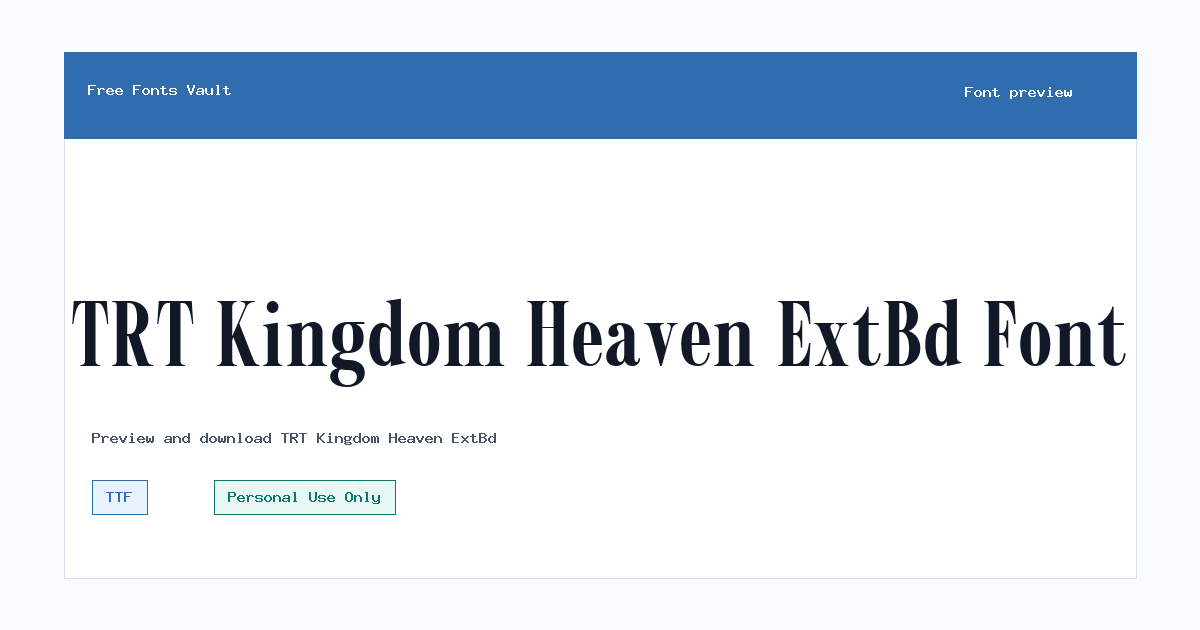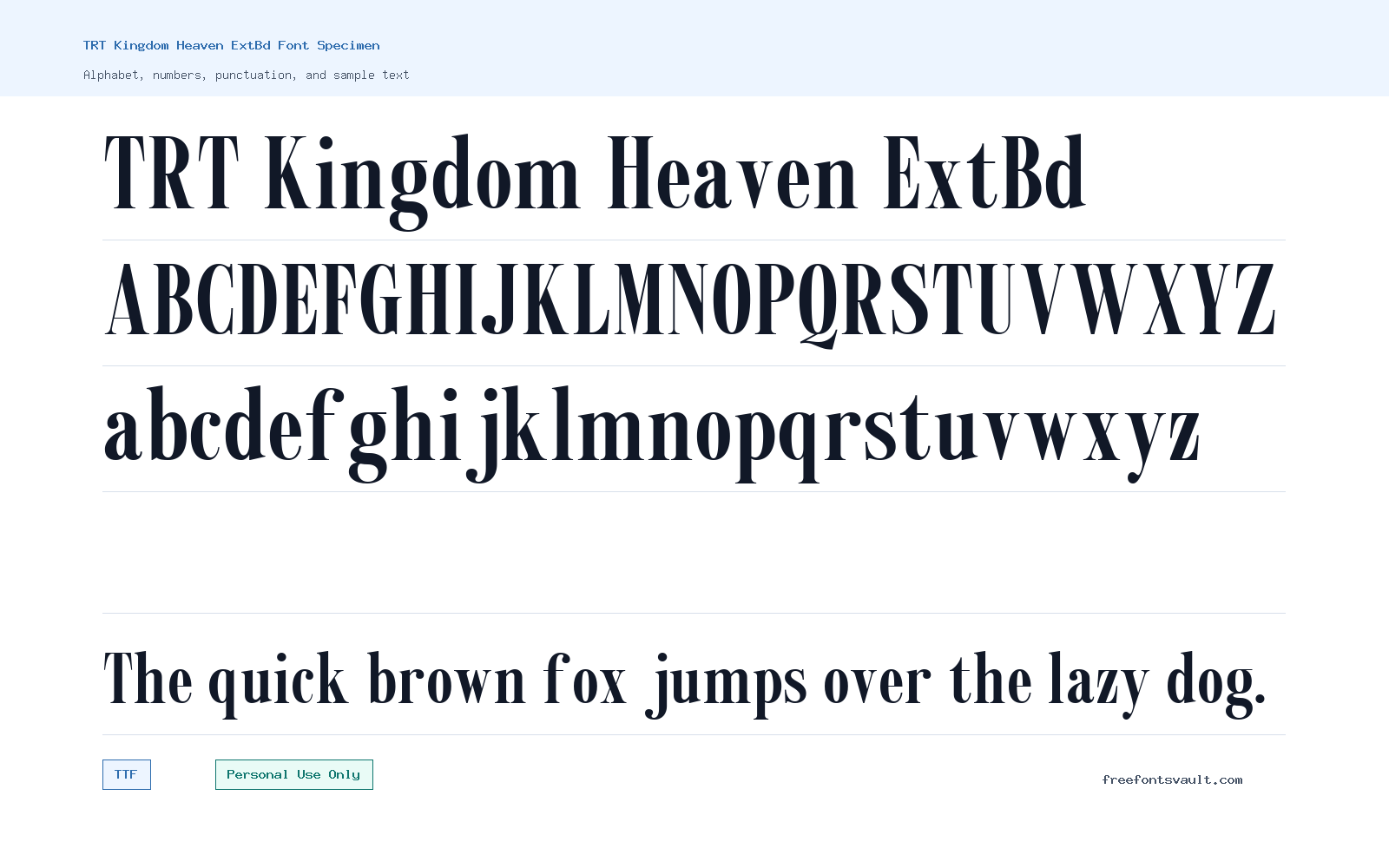
TRT Kingdom Heaven ExtBd
TRT Kingdom Heaven ExtBd font preview showing the family name
TRT Kingdom Heaven ExtBd Font
TRT Kingdom Heaven ExtBd font specimen showing alphabet, numbers, and sample text
TRT Kingdom Heaven ExtBd font.
TRT Kingdom Heaven ExtBd is a personal-use display serif from the TRT Kingdom Heaven family. It has a heavy, title-friendly presence and is best tested in short words, headings, posters, and logo-style drafts rather than long body text.
About TRT Kingdom Heaven ExtBd
TRT Kingdom Heaven ExtBd is the extra-bold member of the TRT Kingdom Heaven family. The name points to a wider, heavier style, and that makes it useful when you want a serif headline to feel firm and noticeable. Use it for large text first: brand mockups, poster titles, social graphics, packaging drafts, invitation headings, and other places where the font can be seen at a comfortable size.
• Extra-bold display serif style suited to short, high-impact text
• Poster titles, cover art, banners, and social media headline graphics
• Logo drafts, packaging concepts, invitations, and decorative text previews
Start by previewing the font at headline sizes. Try a few short phrases, then test all-caps, title case, numbers, and punctuation. If the letters feel too dense, add tracking or pair it with a quiet sans serif for small supporting text. Keep TRT Kingdom Heaven ExtBd for the main visual line and let a more readable font handle paragraphs, captions, or UI text.
What kind of font is TRT Kingdom Heaven ExtBd?
It is a display serif style from the TRT Kingdom Heaven family. The ExtBd name indicates an extra-bold role, making it better for headings and decorative text than long reading.
What should I pair with TRT Kingdom Heaven ExtBd?
Pair it with a simple sans serif or a restrained text serif. Let TRT Kingdom Heaven ExtBd handle the title, then use the supporting font for paragraphs, details, and small text.